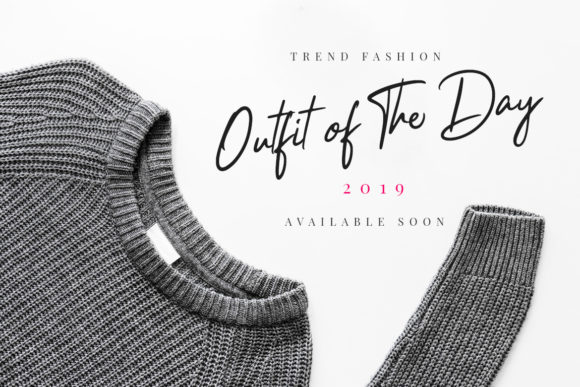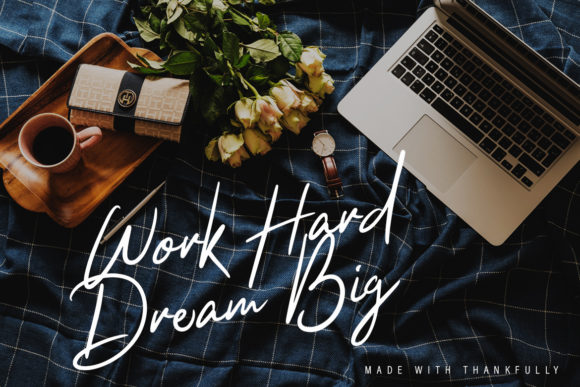
Thankfully Script Font
db-ku.com - Script & Handwritten -- The Thankfully is a simple, yet elegant handwritten font. It’s featuring straightforward, classy and very beautiful characters.